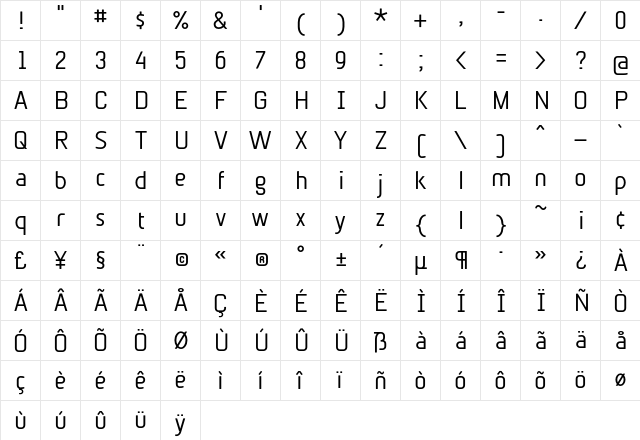
BetaSans Normal Font Preview
BetaSans Normal
BetaSans Normal Font Details
Design Context for BetaSans Typeface
BetaSans takes a measured approach to typography — its balanced proportions and neutral character make it a reliable workhorse for both digital and print work.